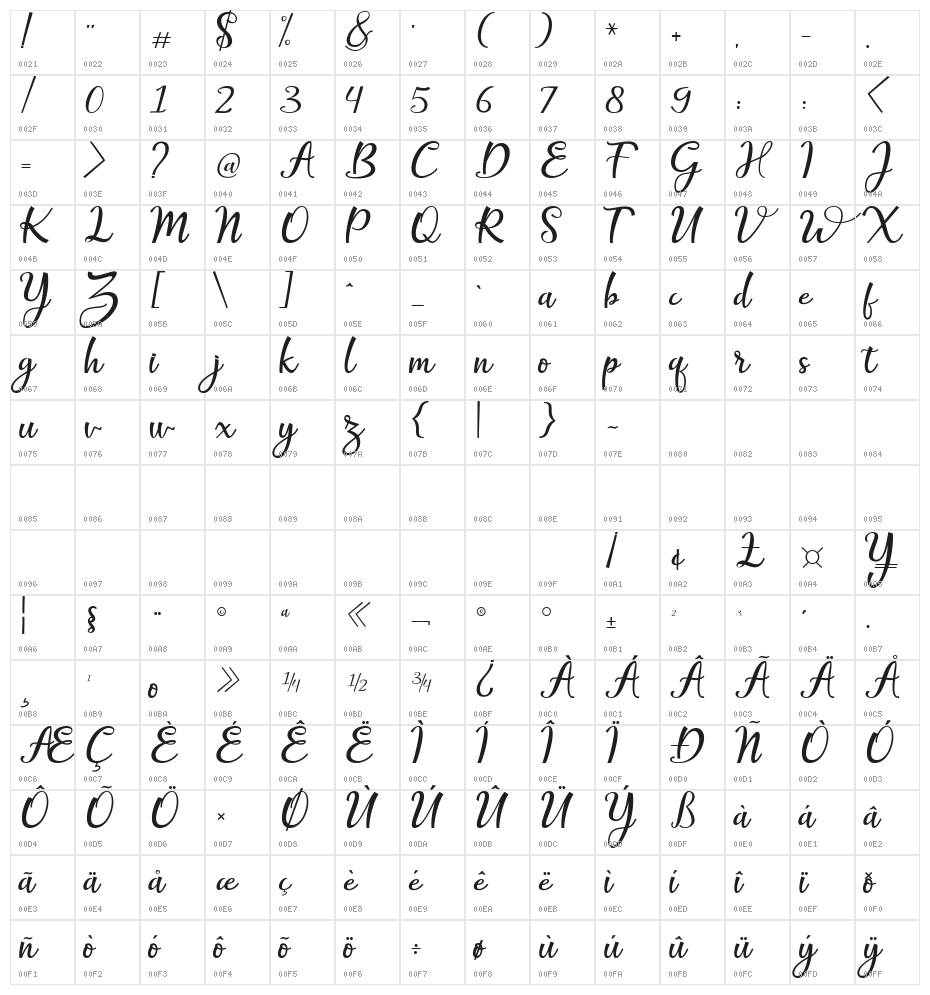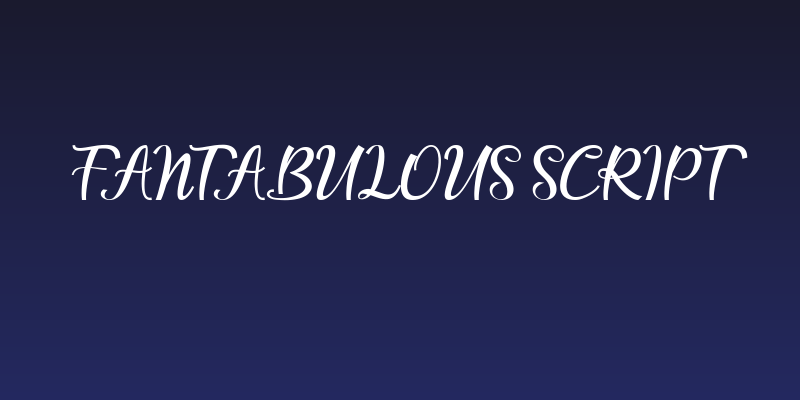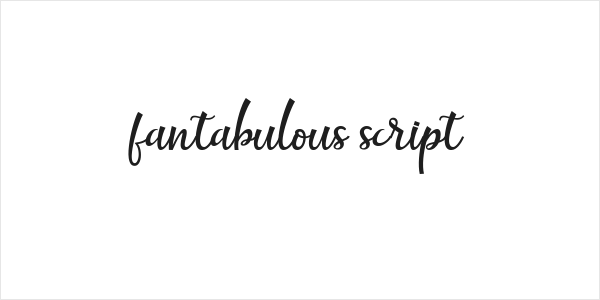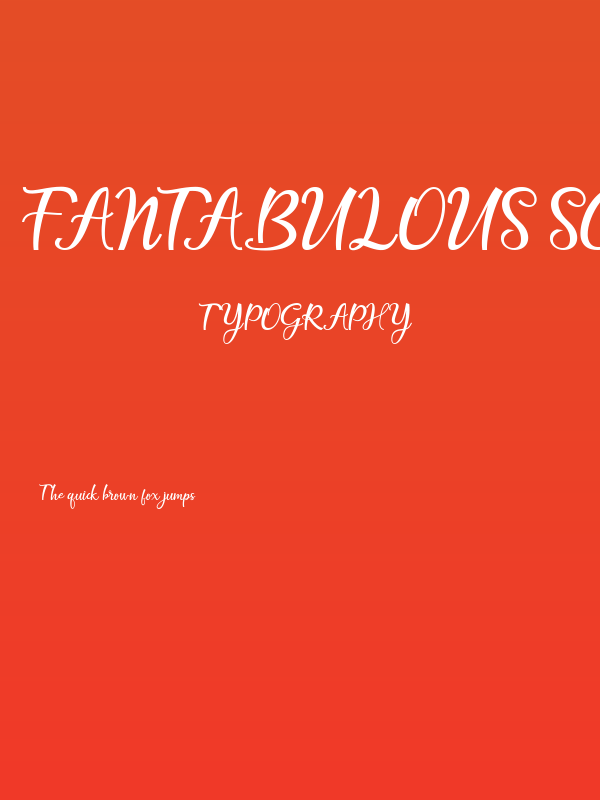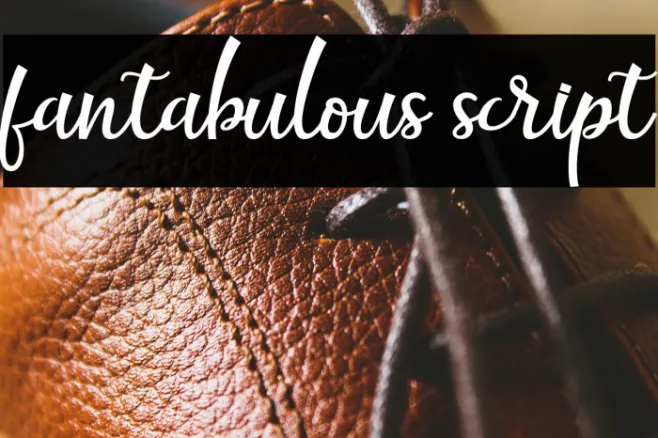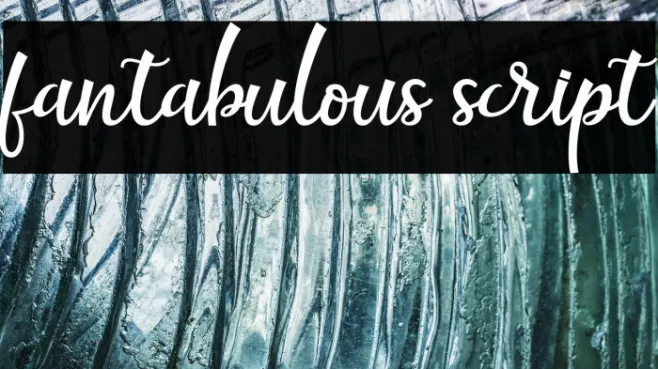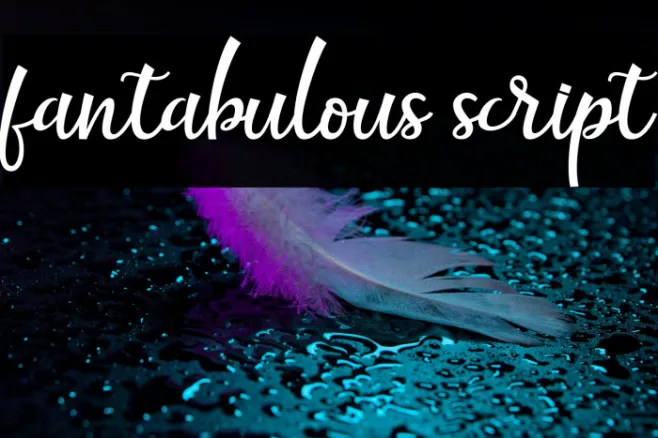
fantabulous script Font
fantabulous script Description
This elegant script font features a flowing, cursive style with smooth, connected strokes that create a sense of movement and grace. The uppercase letters are slightly more embellished, with subtle flourishes that add a touch of sophistication. The lowercase letters maintain a consistent rhythm, enhancing readability while preserving the font's artistic flair. The numerals are stylish yet clear, making them suitable for various design contexts. Special characters are thoughtfully designed to complement the overall aesthetic, ensuring a cohesive look across different uses.
| Overall Style | Elegant, Artistic |
| Proposed Projects | Ideal for wedding invitations, greeting cards, branding projects, and elegant packaging designs. |